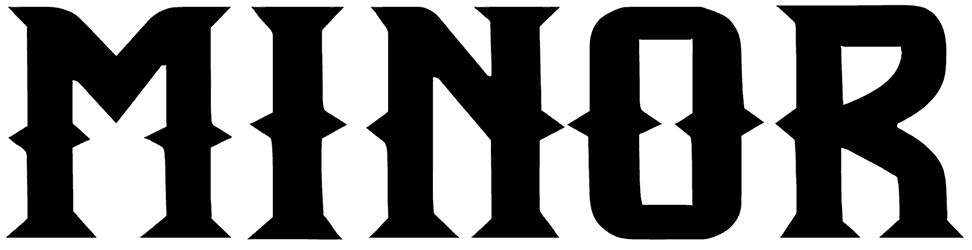
Minor Font
With a modern and at the same time historic style, this gothic font is a perfect design for your context to become salient. Minor has bold letters with sharp edges and is able to show varied designs like movie screens, flyers, wordmarks, and more. Lowercase letters and most of the punctuation marks are unsupported, but Minor is enough to lend your project a strong mood.